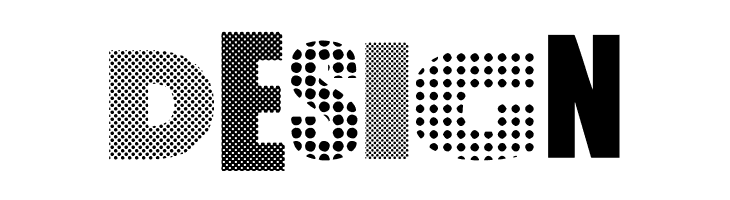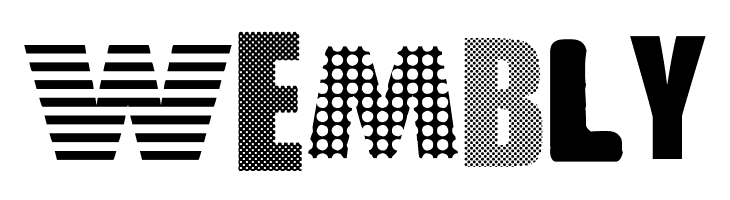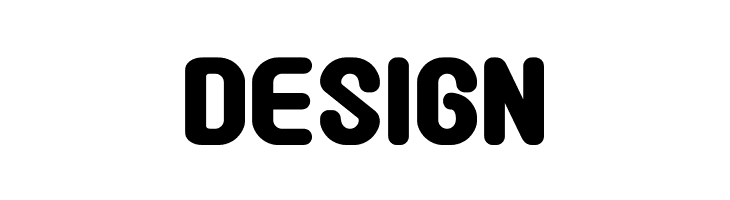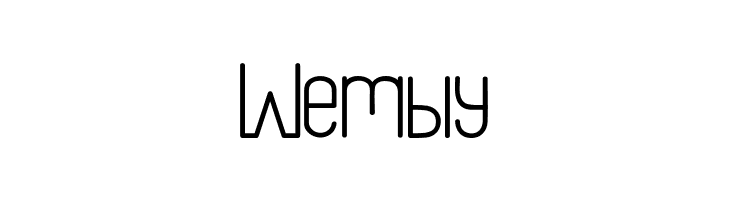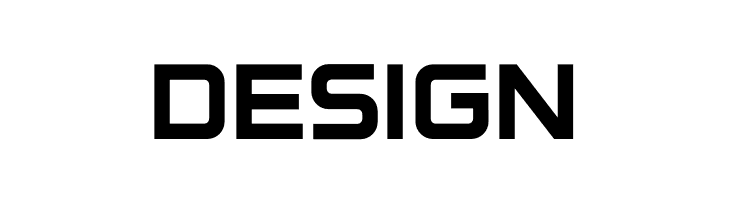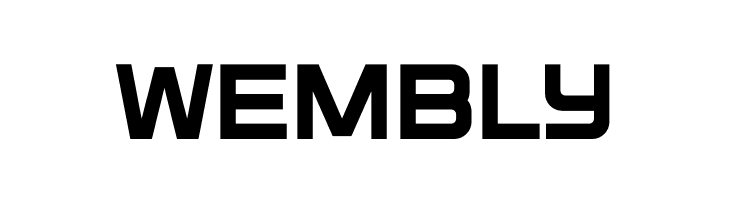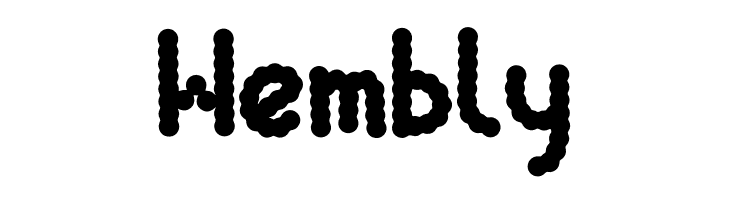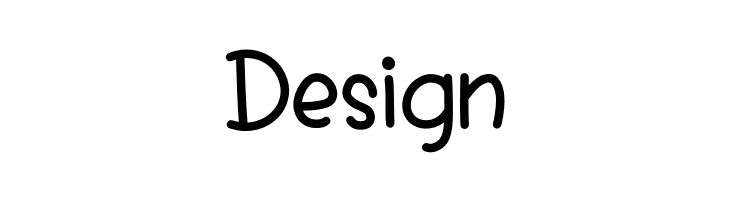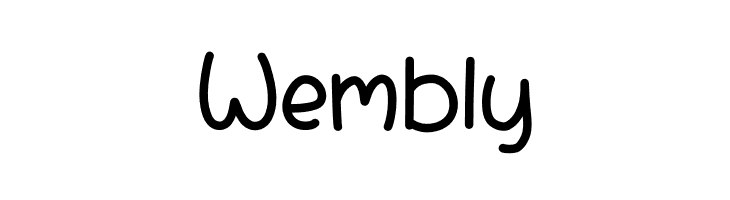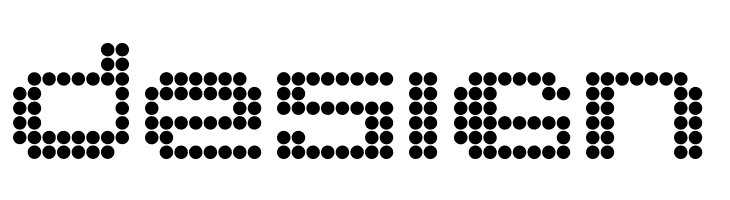
A playful, rounded font with a friendly and whimsical style.
A bold, rounded font with a blocky, playful style.
A bold, rounded font with a modern and clean aesthetic.
A bold, rounded font with a modern and clean style.
A playful, bubble-like font with rounded shapes and bold strokes.
A modern, geometric font with rounded edges and a bold style.
A geometric and artistic font with circular motifs and intricate designs.
A playful, rounded font with irregular, bold characters.
A modern, italicized font with rounded edges and a sleek, dynamic appearance.
A modern, rounded font with a light weight and geometric style.
A decorative font featuring intricate round masks with bold, contrasting lines.
A bold, rounded font with a playful and modern aesthetic.
A modern, dot-based font with a geometric and playful style.
A bold, geometric font with rounded edges and a modern feel.
A bold, rounded font with thick, uniform strokes and a friendly appearance.
A bold, rounded font with a modern and futuristic style.
A bold, rounded font with a modern, futuristic style.
A bold, 3D monogram-style font with a modern, geometric design.
A bold, 3D monogram font with angular, geometric characters and a leftward shadow effect.
A bold, geometric font with a 3D monogram style and rightward slant.
A tall, narrow, and geometric font with a modern aesthetic.
A bold, geometric font with a monogram style, featuring sharp angles and a modern look.
A bold, geometric monogram-style font with sharp angles and decorative cutouts.
A modern, circular font with geometric and decorative elements.
A bold, patterned font with diverse textures and a playful, modern style.